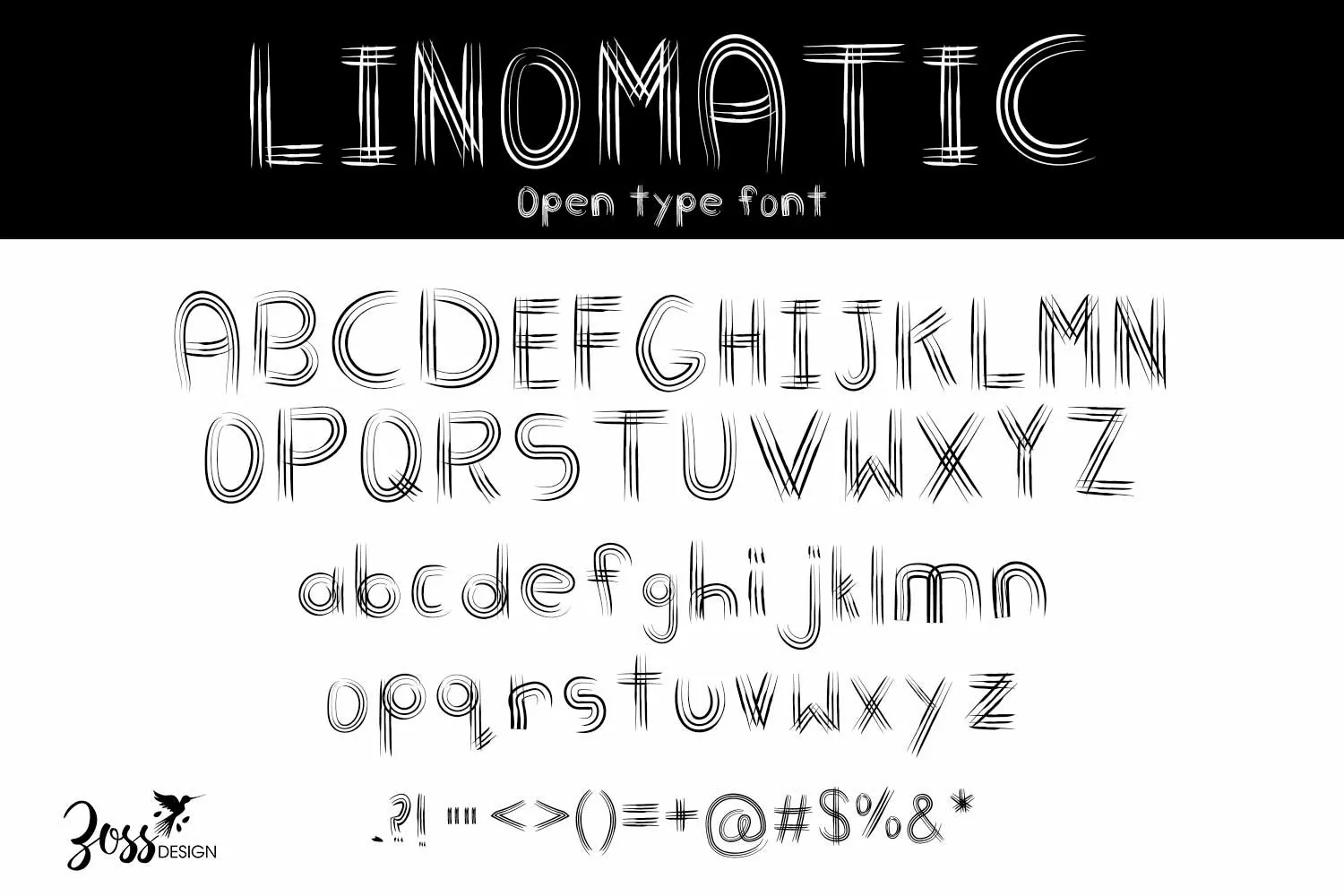
Linomatic font is a font consisting of groups of lines to create each individual letter. Each letter was drawn out in adobe illustrator and then put together to create a full alphabet.